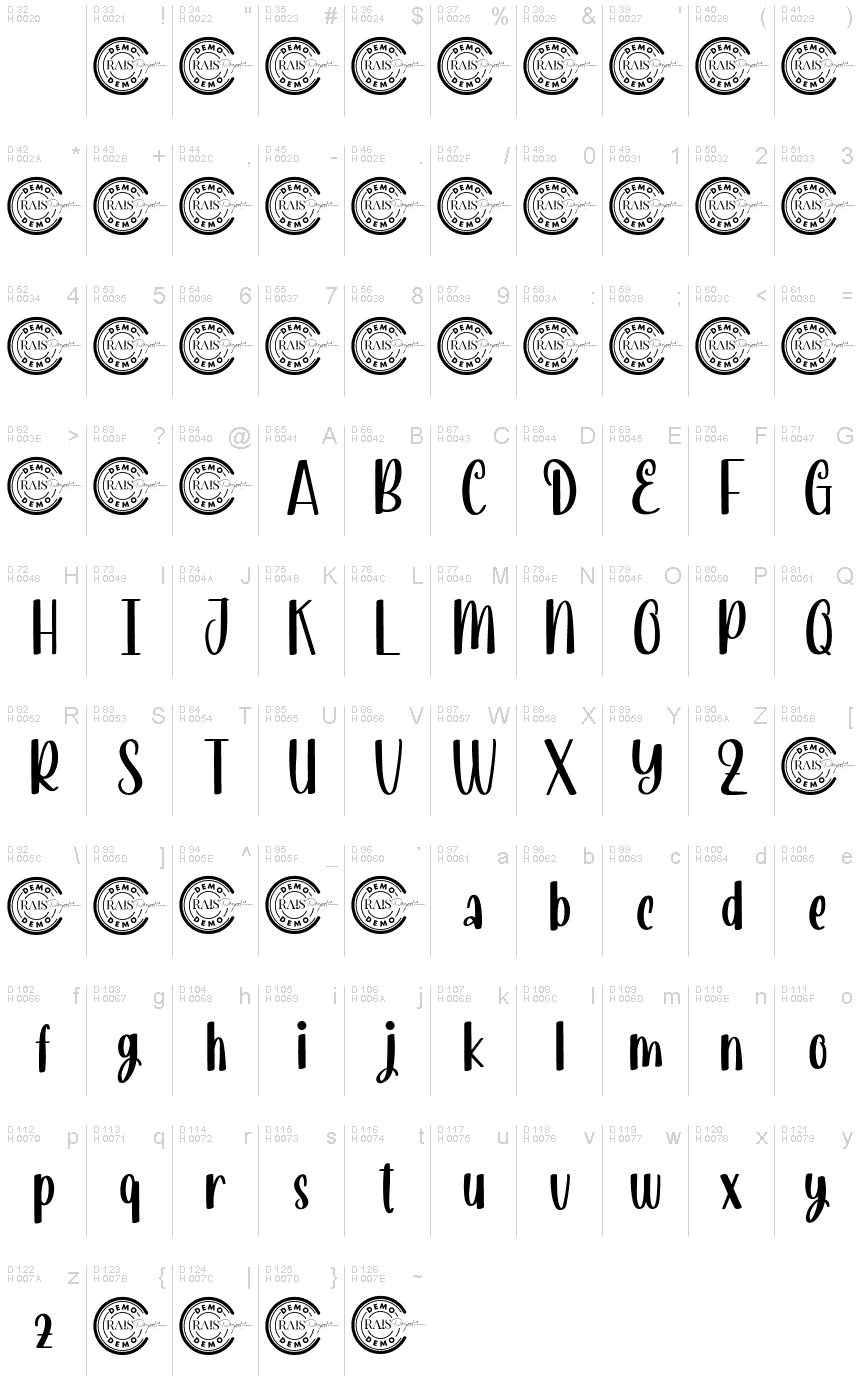
Cute Dream Demo
Cute Dream is a charming, handwritten font designed by Widiyanti & Suci Anita. With its condensed width and playful style, it's perfect for projects that need a touch of whimsy. Use it for children's books, greeting cards, or even social media posts to add a fun and friendly feel. This semi-bold font is sure to capture attention with its unique curves and loops. Whether you're creating a logo or designing a website, Cute Dream will add personality to any project. Let your imagination run wild with this adorable typeface!